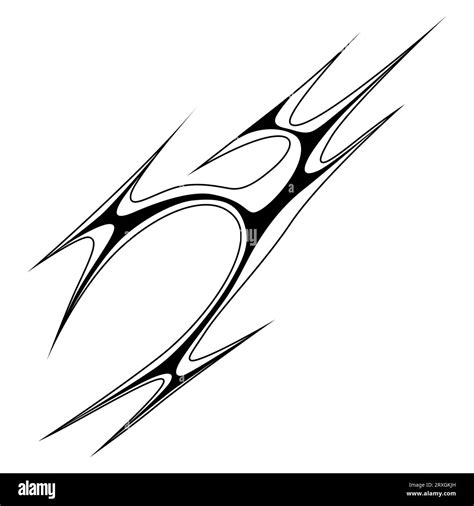
In the ever-evolving world of digital design, typography plays a crucial role in shaping the visual language of the web. One of the most intriguing and lesser-known fonts in this realm is the Cyber Sigilism Font. This font is not just a collection of characters; it is a statement, a symbol of the digital age, and a testament to the creativity and innovation that drives modern design.
Understanding Cyber Sigilism Font
The Cyber Sigilism Font is a unique typeface that blends futuristic aesthetics with a touch of mysticism. It is designed to evoke a sense of mystery and intrigue, making it perfect for projects that require a distinctive and memorable visual identity. The font's design elements often include geometric shapes, sharp angles, and intricate patterns, which give it a cyberpunk-inspired look.
One of the standout features of the Cyber Sigilism Font is its versatility. It can be used in a variety of contexts, from digital art and graphic design to branding and web development. Its ability to adapt to different styles and themes makes it a valuable addition to any designer's toolkit.
Key Features of Cyber Sigilism Font
The Cyber Sigilism Font is characterized by several key features that set it apart from other typefaces:
- Distinctive Design: The font's unique design elements, such as its geometric shapes and sharp angles, make it instantly recognizable.
- Versatility: It can be used in a wide range of applications, from digital art to branding.
- Mystical Aesthetic: The font's design often includes elements that evoke a sense of mystery and intrigue.
- Modern Appeal: Its futuristic look makes it perfect for modern design projects.
Applications of Cyber Sigilism Font
The Cyber Sigilism Font can be used in a variety of applications, each highlighting its unique characteristics. Here are some of the most common uses:
Digital Art
In the world of digital art, the Cyber Sigilism Font is a popular choice for artists looking to create visually striking pieces. Its distinctive design and mystical aesthetic make it perfect for creating art that stands out. Whether it's used in illustrations, animations, or digital paintings, the font adds a layer of depth and intrigue to the artwork.
Graphic Design
Graphic designers often turn to the Cyber Sigilism Font for projects that require a unique and memorable visual identity. Its versatility makes it suitable for a wide range of design tasks, from creating logos and branding materials to designing posters and flyers. The font's ability to adapt to different styles and themes makes it a valuable tool for graphic designers.
Web Development
In web development, the Cyber Sigilism Font can be used to create visually appealing and user-friendly websites. Its modern appeal and distinctive design make it a great choice for websites that want to stand out from the crowd. Whether it's used in headings, body text, or navigation menus, the font adds a touch of sophistication and intrigue to any website.
Branding
For branding projects, the Cyber Sigilism Font is an excellent choice for creating a strong and memorable brand identity. Its unique design and mystical aesthetic make it perfect for brands that want to convey a sense of mystery and intrigue. Whether it's used in logos, packaging, or marketing materials, the font helps to create a cohesive and distinctive brand image.
Designing with Cyber Sigilism Font
When designing with the Cyber Sigilism Font, there are several key considerations to keep in mind. These include understanding the font's characteristics, choosing the right color scheme, and ensuring readability. Here are some tips for designing with this unique typeface:
Understanding the Font's Characteristics
Before using the Cyber Sigilism Font in a design project, it's important to understand its characteristics. The font's distinctive design elements, such as its geometric shapes and sharp angles, can be both an asset and a challenge. It's essential to use the font in a way that highlights its unique features while ensuring that the design remains legible and visually appealing.
Choosing the Right Color Scheme
The color scheme you choose can significantly impact the overall look and feel of your design. When using the Cyber Sigilism Font, it's important to select colors that complement its distinctive design. Dark, moody colors often work well with the font's mystical aesthetic, while bright, vibrant colors can add a modern and energetic touch.
Ensuring Readability
While the Cyber Sigilism Font is visually striking, it's important to ensure that it remains legible. This is especially important when using the font in body text or for longer passages of text. To enhance readability, consider using larger font sizes, increasing line spacing, and choosing a contrasting background color.
Comparing Cyber Sigilism Font with Other Fonts
To fully appreciate the unique qualities of the Cyber Sigilism Font, it can be helpful to compare it with other popular fonts. Here is a table that highlights some of the key differences between the Cyber Sigilism Font and other well-known typefaces: